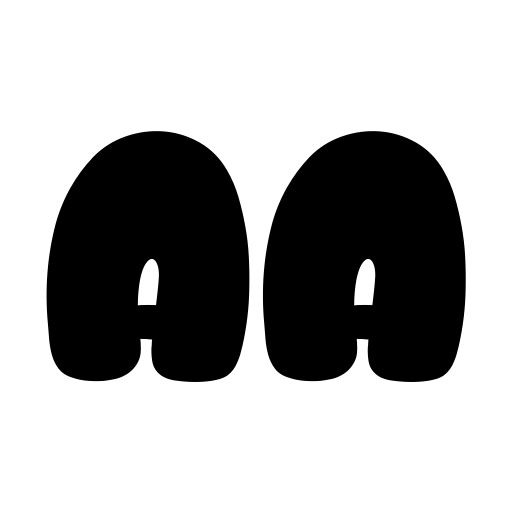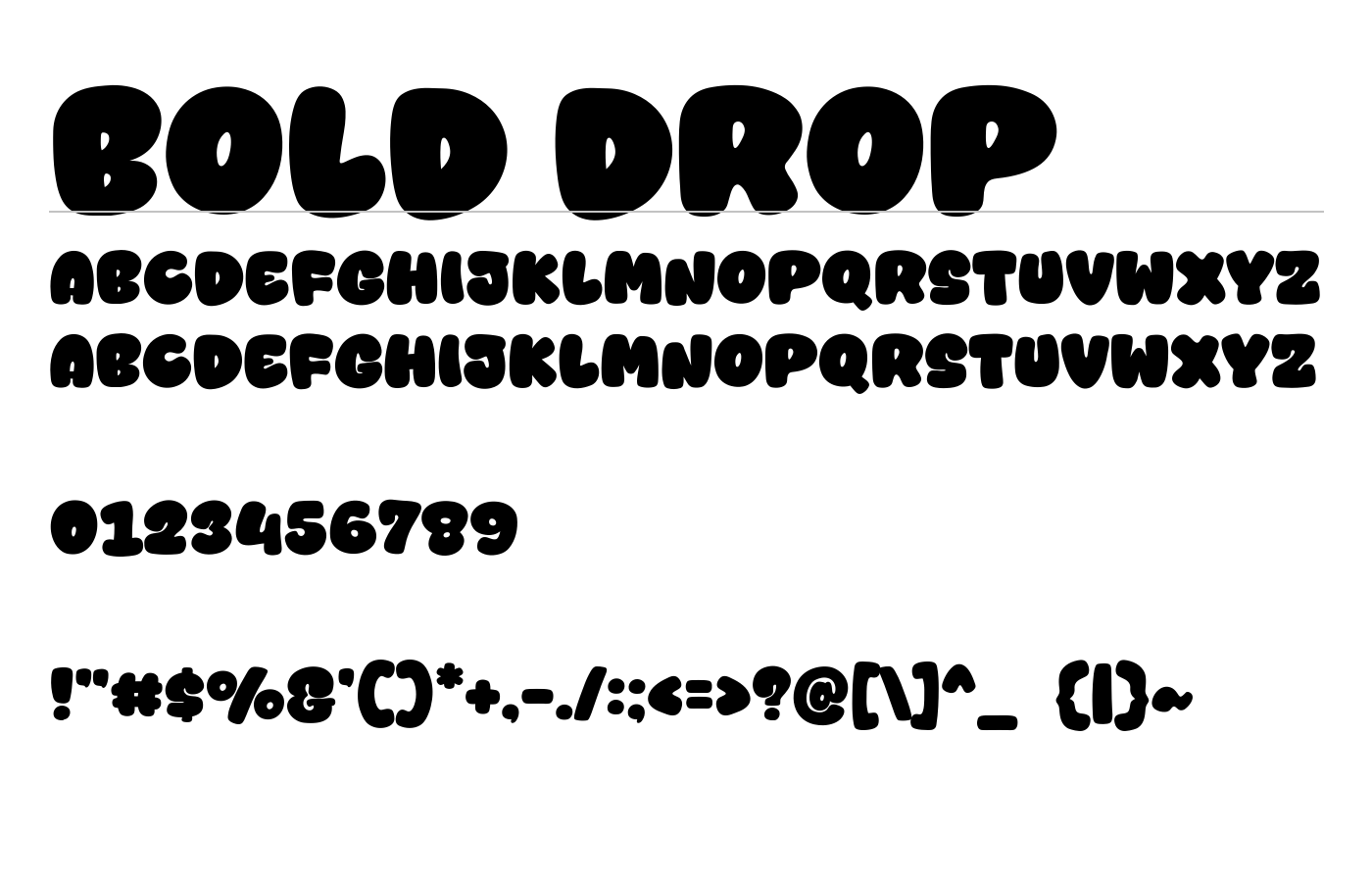
Bold Drop is a playful, chunky sans serif font with a heavy weight and rounded, bubbly shapes that give it a friendly and energetic vibe. Its bold, condensed style is perfect for grabbing attention in headlines, logos, and fun graphic designs where a lively, informal look is desired. Ideal for projects that want to convey cheerfulness and approachability, this font works well in casual branding, posters, and creative packaging.
Bold Drop Font
About Bold Drop Font